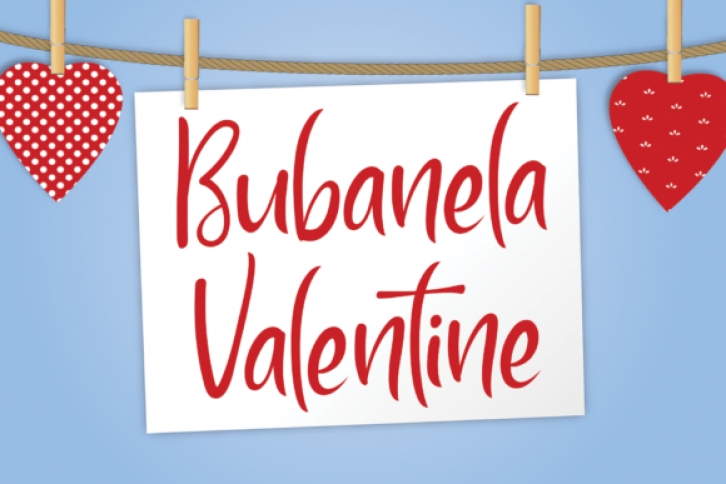
Bubanela Valentine is a trendy and cursive handwritten font. This gentle font will look gorgeous on a variety of design ideas. It will add a joyful and romantic touch to each of your projects!